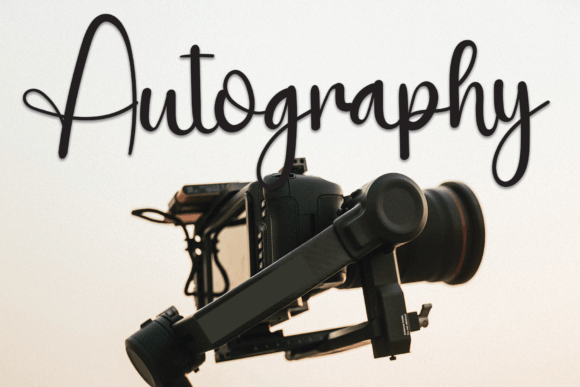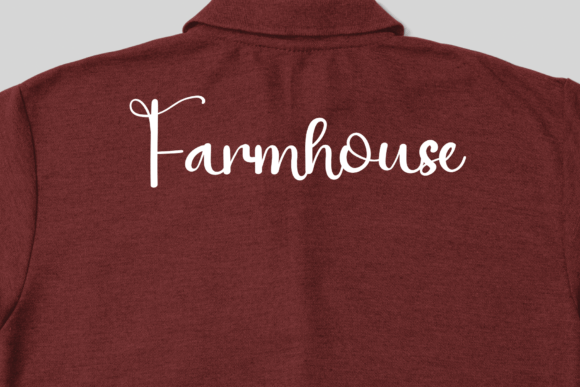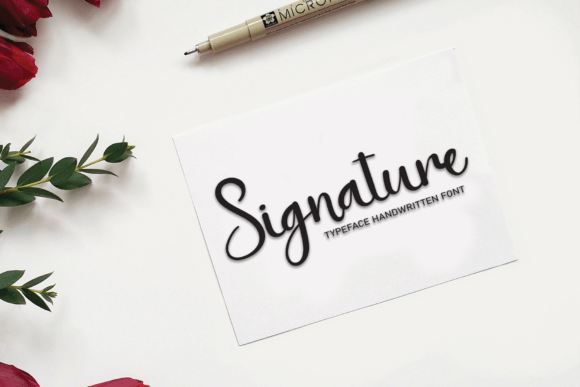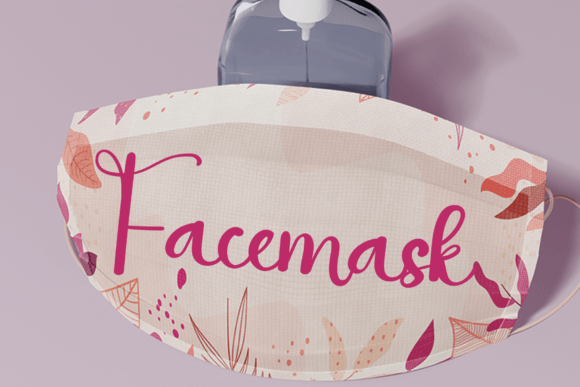
The Babe Boho Font: A Simple yet Powerful Handwritten Companion
I still remember the time I was working on a project for a client’s birthday card. I had all the design elements ready, but I was stuck on finding the perfect font. I wanted something friendly, approachable, and yet elegant. That’s when I stumbled upon the Babe Boho font. It was love at first sight! 💕
Whether you’re a designer, crafter, or creative hobbyist, the Babe Boho font has the potential to become your go-to font for various occasions. In this article, we’ll dive into the world of Babe Boho, exploring its features, uses, and what makes it so special.
• ✨ Simple and friendly handwritten style
• ✅ Highly versatile for various design projects
• 💻 Works well for both digital and print designs
• 🎨 Perfect for creating a personal touch in crafts and presentations
While Babe Boho is an excellent font, there are a few things to keep in mind:
• 🤔 Limited character set compared to some other fonts
• ⚠️ May not work well for very small font sizes
The Story Behind Babe Boho
Babe Boho was designed with the intention of creating a simple, friendly font that could be used for a wide range of design projects. The designer aimed to craft a font that would feel approachable and personal, making it perfect for crafts, digital design, and presentations.
Q: What type of projects is Babe Boho suitable for?
A: Babe Boho is versatile and can be used for various projects, including crafts, digital design, presentations, greeting cards, and more.
Q: Is Babe Boho a script font?
A: Babe Boho is a handwritten font, but it’s not a traditional script font. It has a more casual, friendly feel.